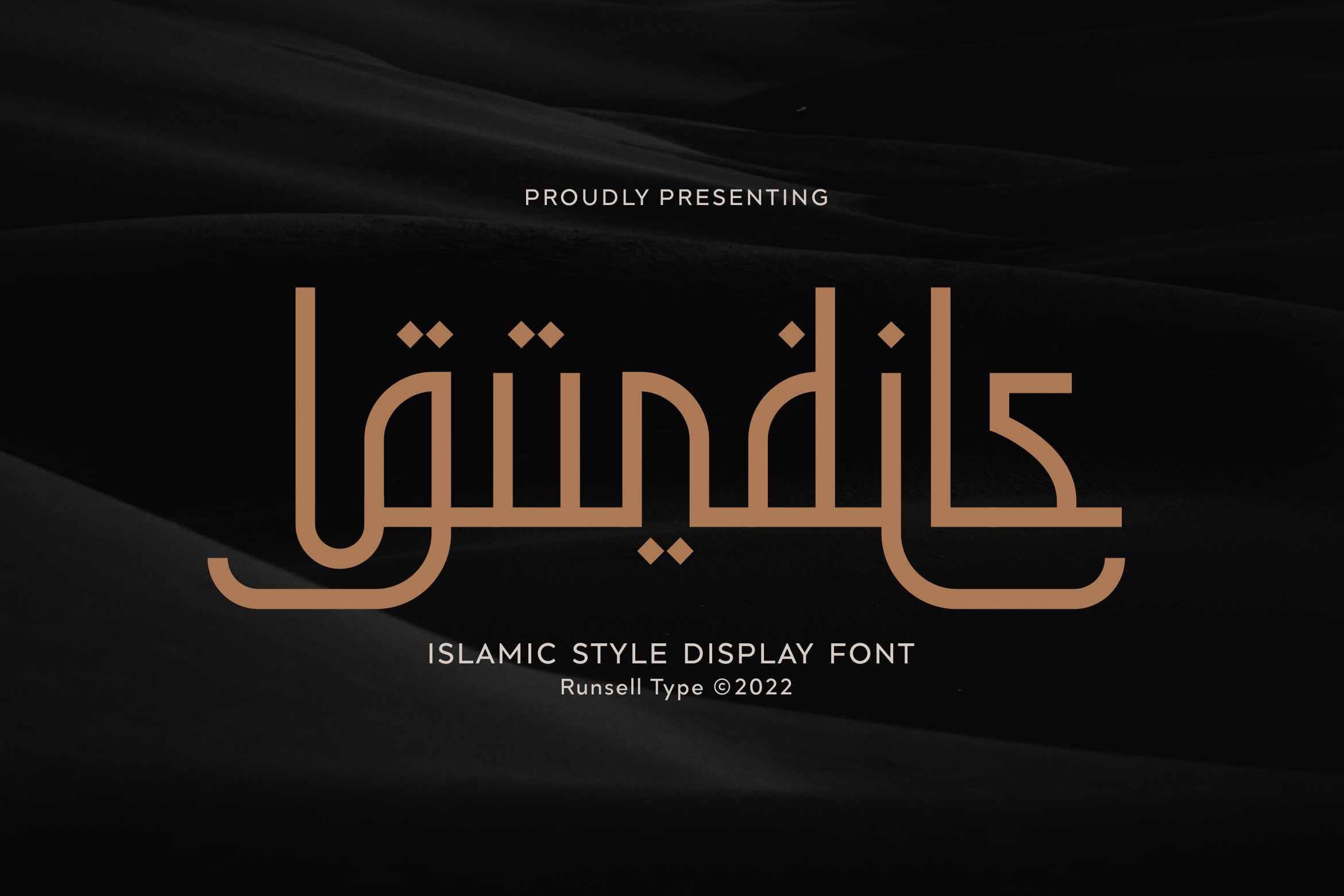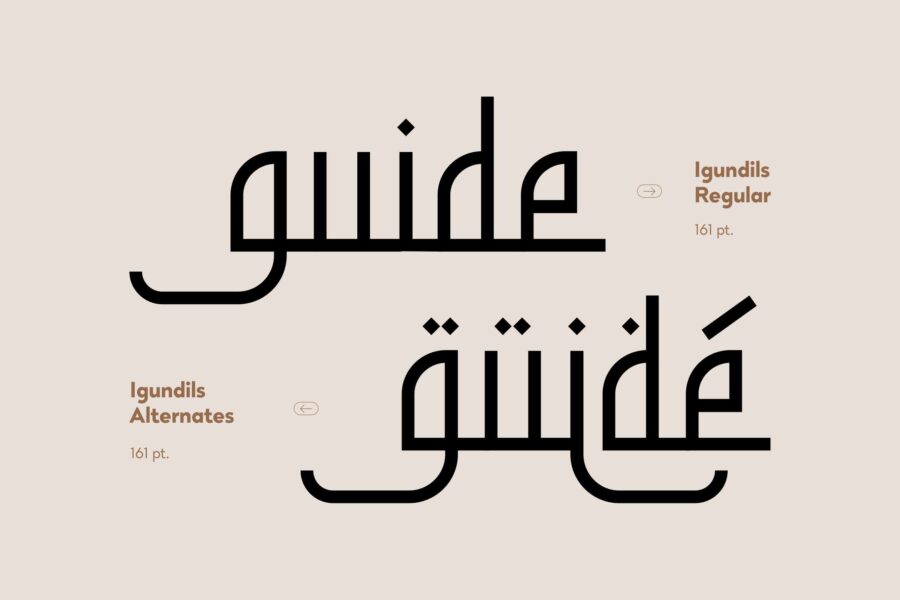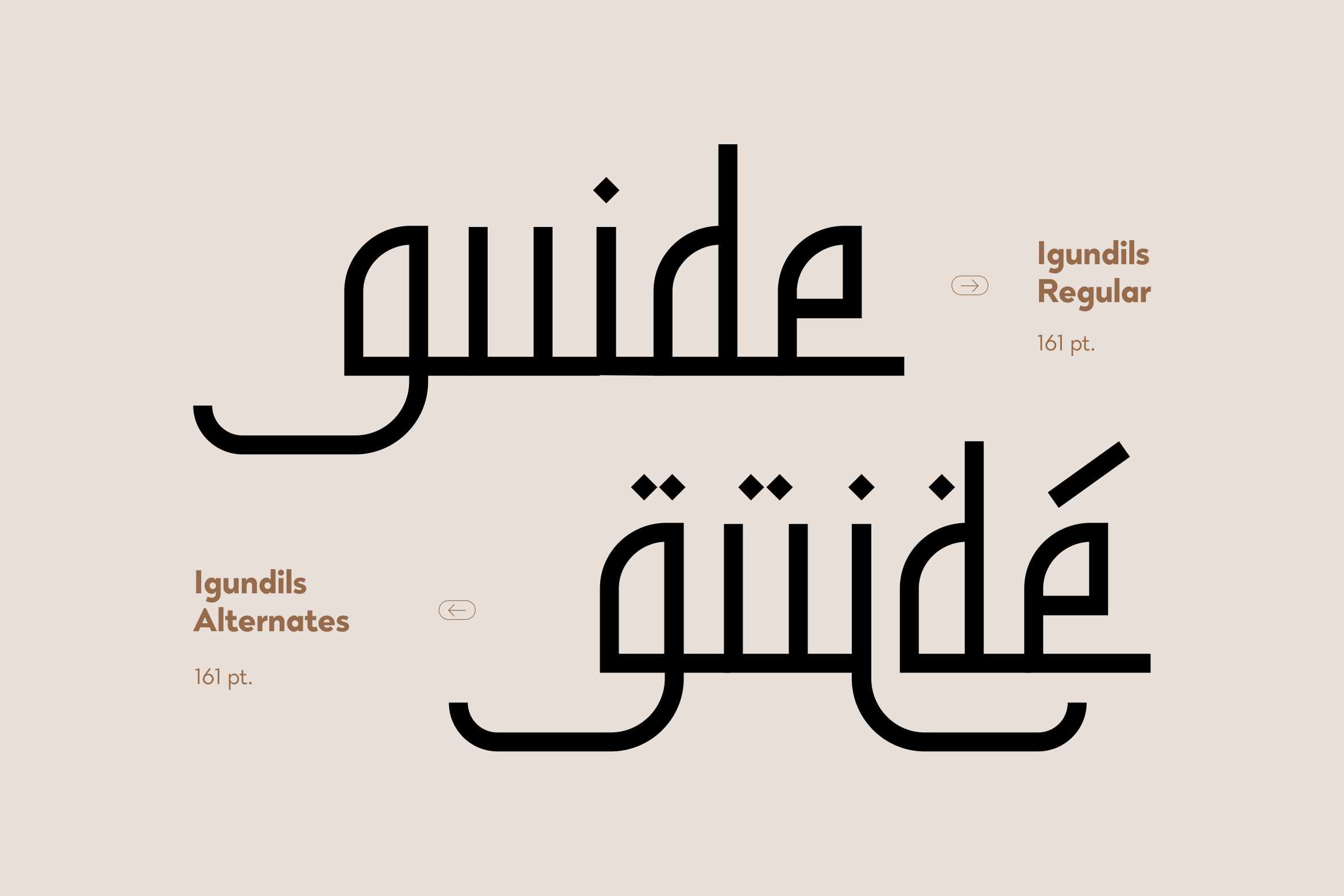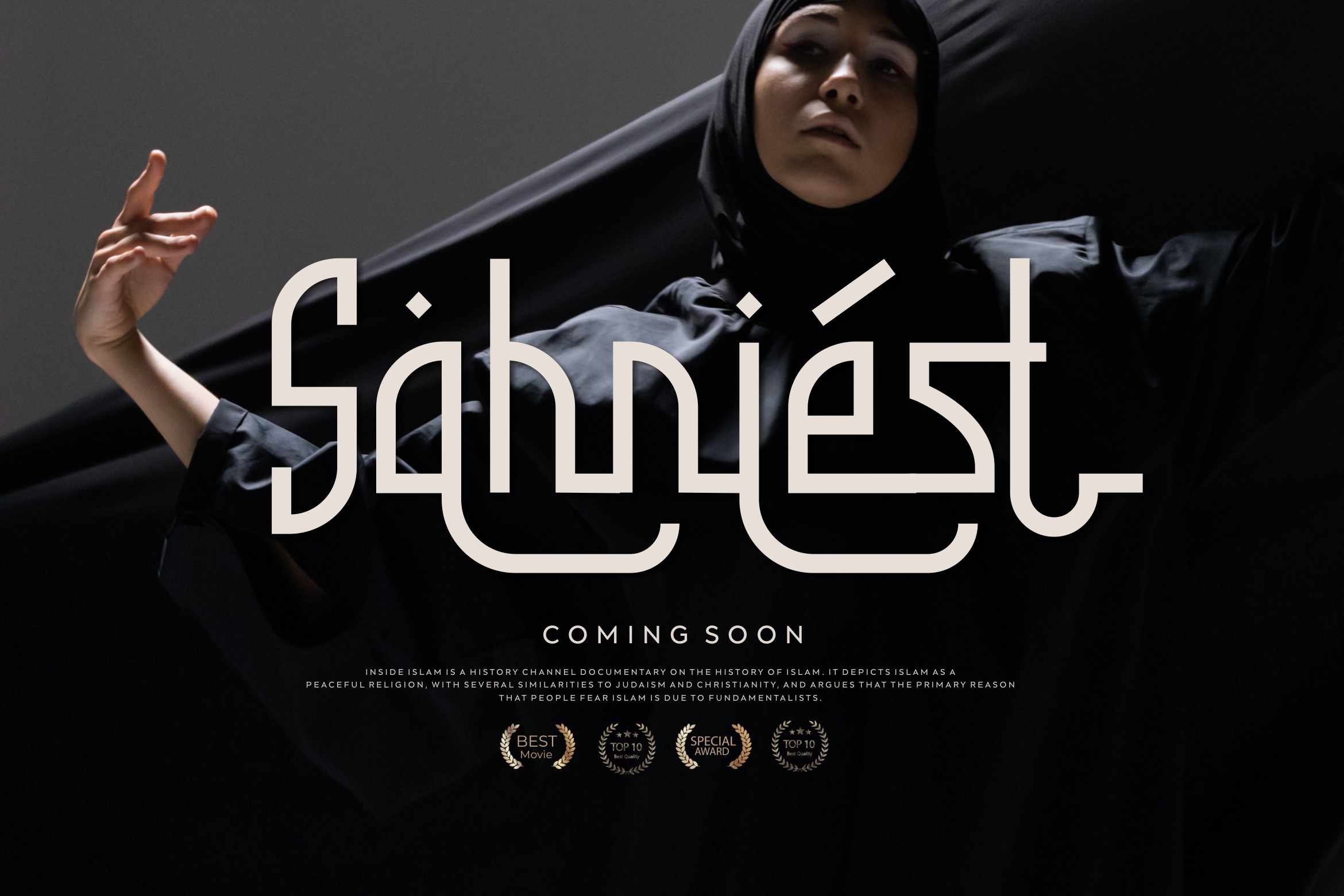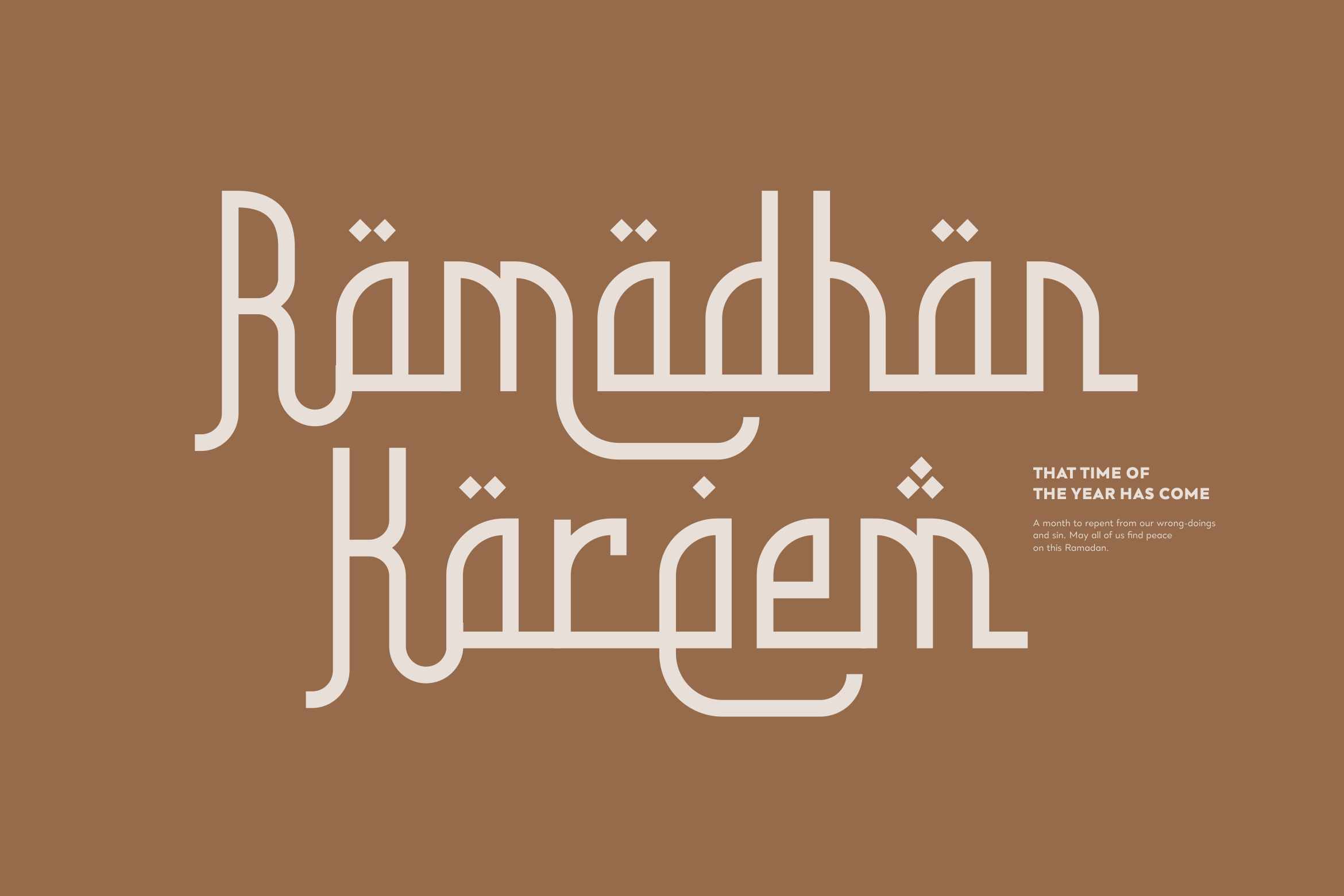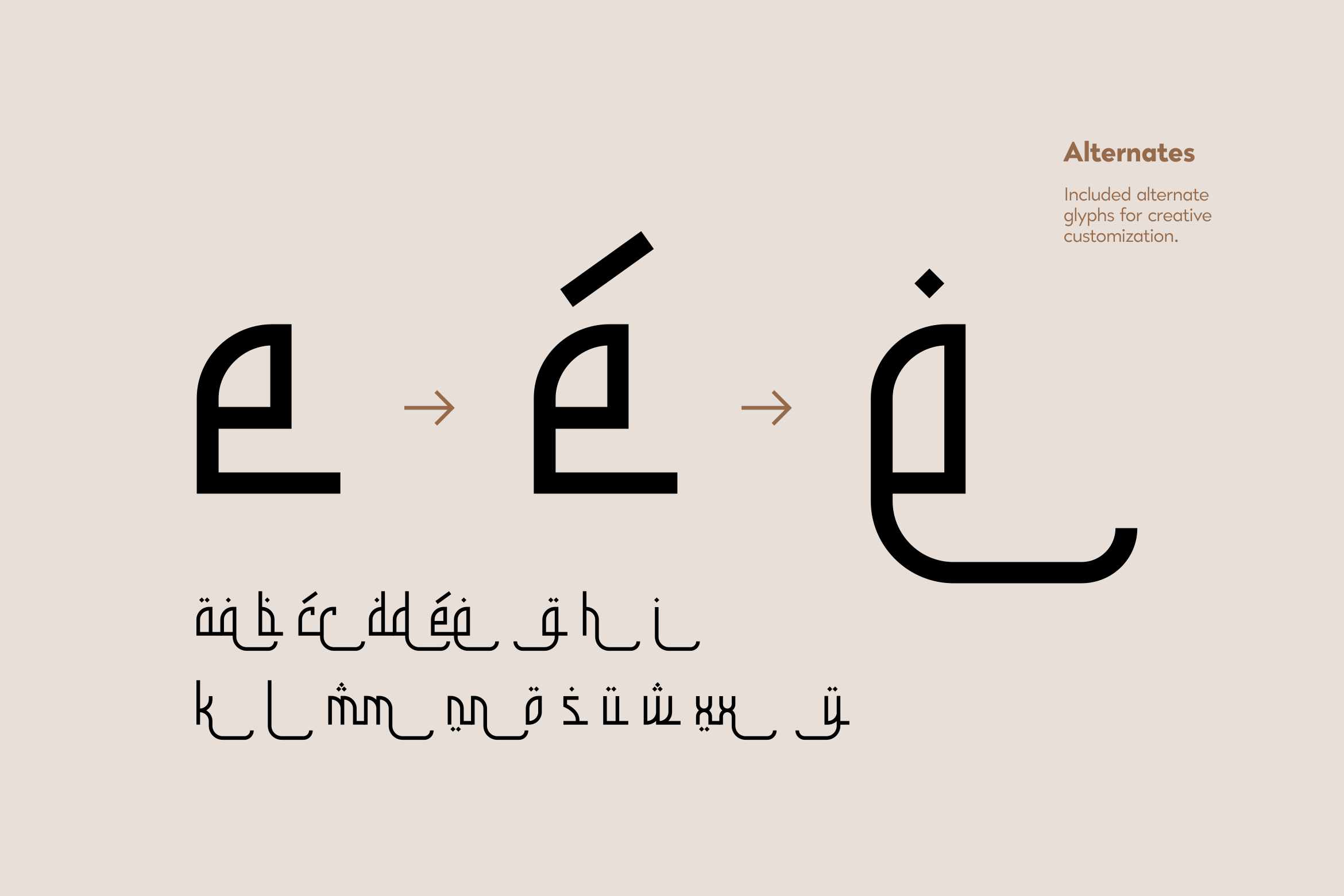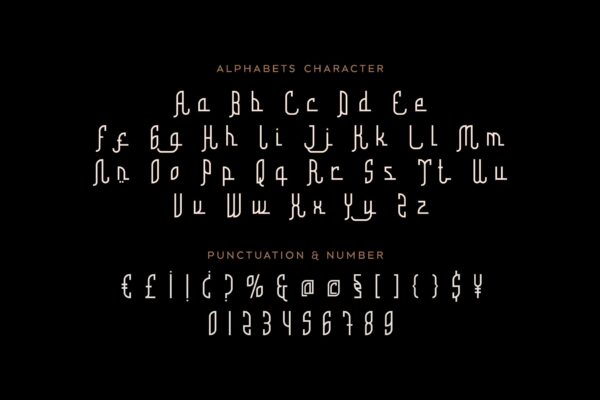
Igundils is a modern Islamic display font that blends geometric structure with cultural elegance. Its unique line-based design mimics the strokes of traditional Arabic calligraphy while remaining highly legible in both Arabic and Latin scripts. The font includes regular and alternate styles, allowing for flexible visual expression in religious, cultural, or branding projects.
Perfect for editorial headlines, Ramadan campaigns, or faith-based product packaging, Igundils commands attention with its futuristic yet spiritual vibe. The extensive glyph set and creative alternates provide plenty of room for customization, while its structured forms ensure aesthetic harmony in layout compositions.